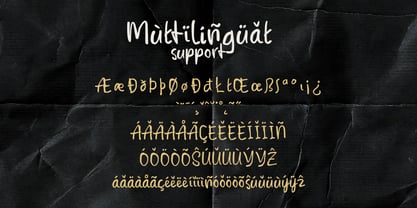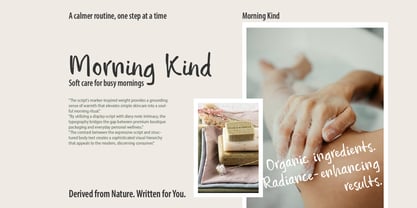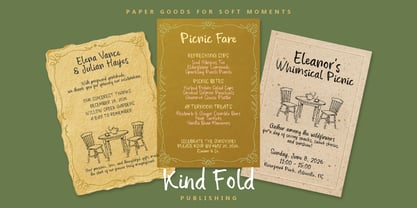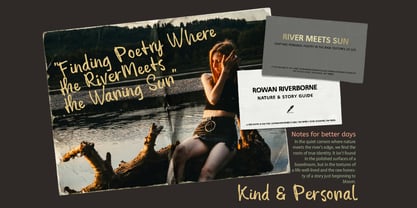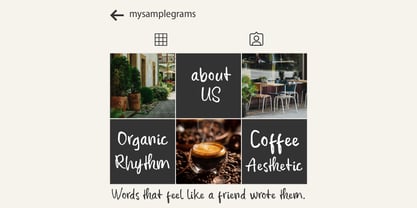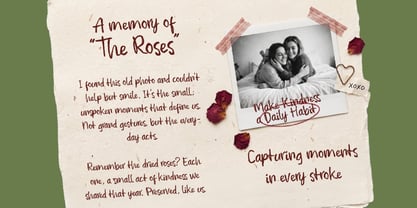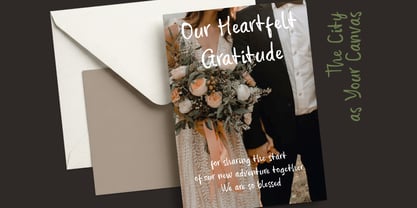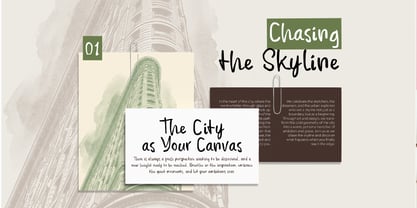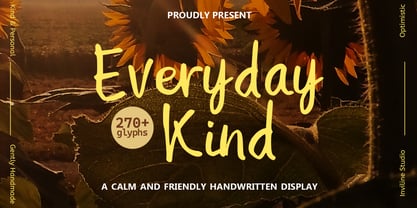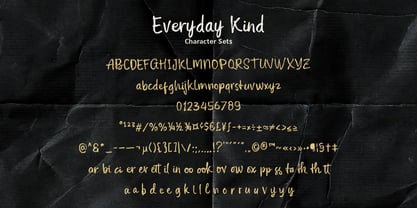
Everyday Kind
Die Schriftfamilie Everyday Kind wurde von Virgiawan Listanto entworfen und von Inviline veröffentlicht. Everyday Kind enthält 1 Stile. Mehr über diese Familie
Everyday Kind was born from the desire to create typography that feels like a warm hug. This gently handmade display font from Inviline Studio eliminates the digital stiffness often found in modern designs, showcasing optimistic curves and a friendly demeanor. With over 270 glyphs, it supports a wide range of Latin languages and incorporates smart OpenType features for custom letterform variations. Everyday Kind is highly recommended for lifestyle magazines, premium boutique identities, and editorial layouts that seek a "Neo-Humanist" touch, making it an ideal choice for branding, web design, and print applications.